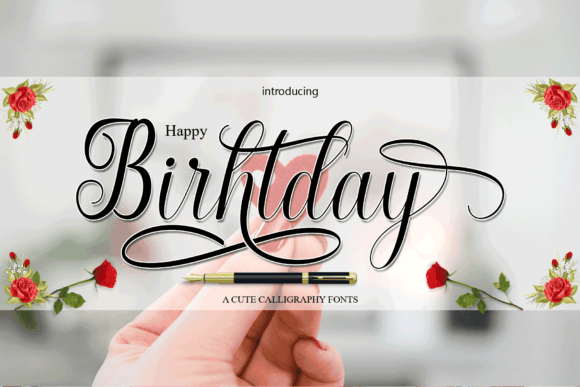
The Birth of a Beautiful Font: A Designer’s Delight
I’ll never forget the time I was working on a birthday party invitation design for a client’s kid’s celebration. I had all the elements ready – the cute illustrations, the vibrant colors, and the fun graphics – but something was missing. The font I was using just didn’t have that special sparkle that would make the invitation truly memorable. That’s when I stumbled upon the Birthday Font. It was love at first sight! ✨
What I Love About Birthday Font
• ✨ Stylish and delicate script: The Birthday Font has a clean, thin, and smooth vibe that instantly elevates any design.
• 🌈 Versatile and adaptable: Whether you’re designing a birthday invitation, a greeting card, or a social media post, this font fits right in.
While the Birthday Font is amazing, there are a few minor things to keep in mind: 🤔
• ⚠️ Legibility at small sizes: Like many script fonts, the Birthday Font may lose some legibility when used at very small sizes. Make sure to test it out at different sizes to find the sweet spot for your design.
• ⚠️ Overuse of swashes: With great power comes great responsibility! Be mindful of overusing swashes and ligatures, as they can make your text look cluttered if not used thoughtfully.
The Story Behind Birthday Font
While the exact origins of the Birthday Font are unclear, it’s easy to imagine a designer sitting down to create the perfect birthday celebration font. Perhaps they were inspired by elegant handwritten notes, festive party decorations, and the joy of bringing people together. The result is a font that’s both stylish and approachable – perfect for making any celebration feel special.
Q: Is Birthday Font suitable for body text?
A: While Birthday Font is beautiful, it’s best suited for headings and short paragraphs due to its script nature. For longer body text, consider a more readable font.
Q: Does Birthday Font support multiple languages?
A: As a PUA encoded font, Birthday Font likely supports a range of languages, but it’s best to check with the font creator or documentation for specific details.